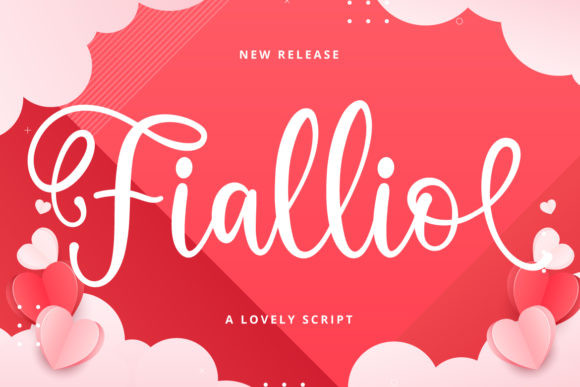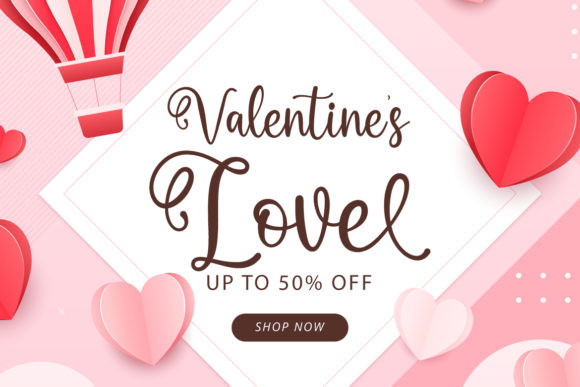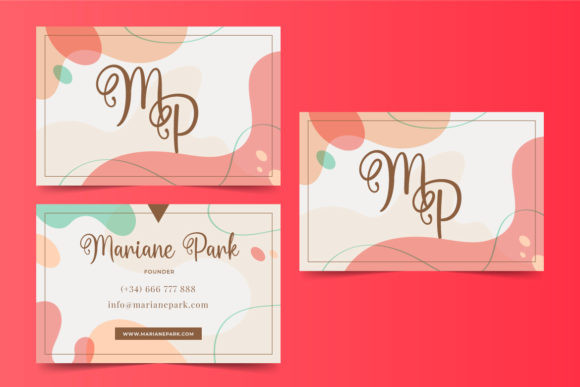
Fiallio Font
Fialliois a flowing handwritten font, described by an elegant touch, perfect for your favorite projects. Fall in love with its incredibly distinct and timeless style and use it to create spectacular designs!
Fiallio features a varying baseline, smooth lines, gorgeous glyphs and stunning alternates and is very suitable for crafting design, silhouette, wedding, cutting, cricut projects .Add it to your most creative ideas and notice how it makes them come alive!